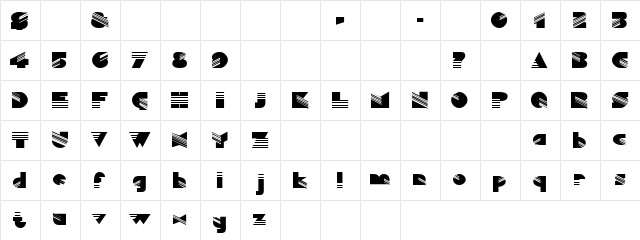
Hesitate Normal
Hesitate Family
Design Context for Hesitate
Hesitate is a composed and adaptable typeface that performs quietly and consistently across a wide range of design contexts.